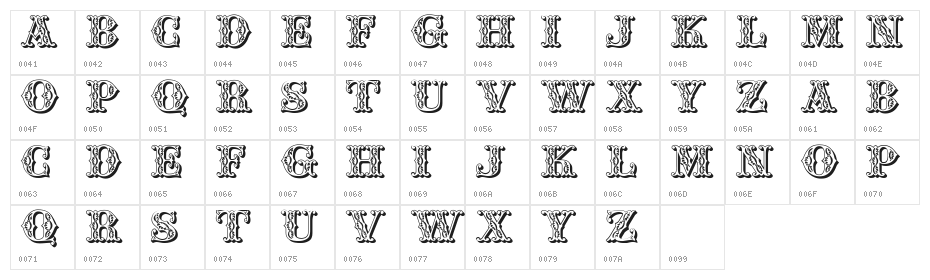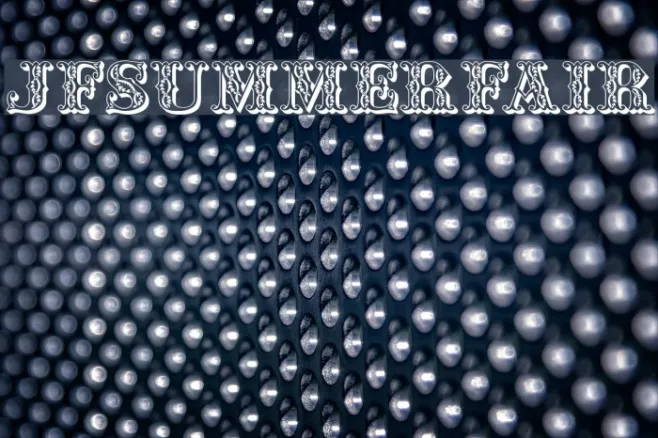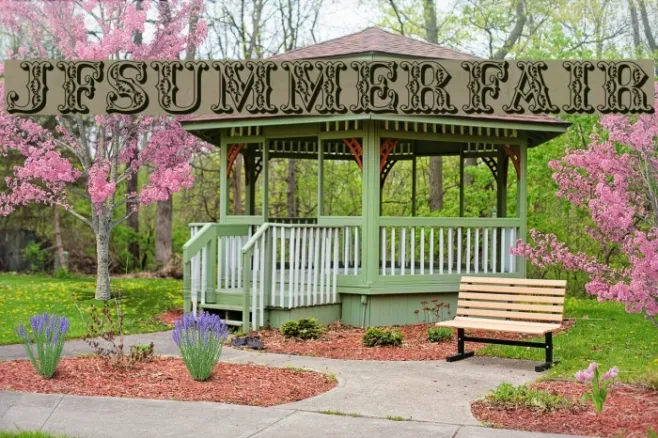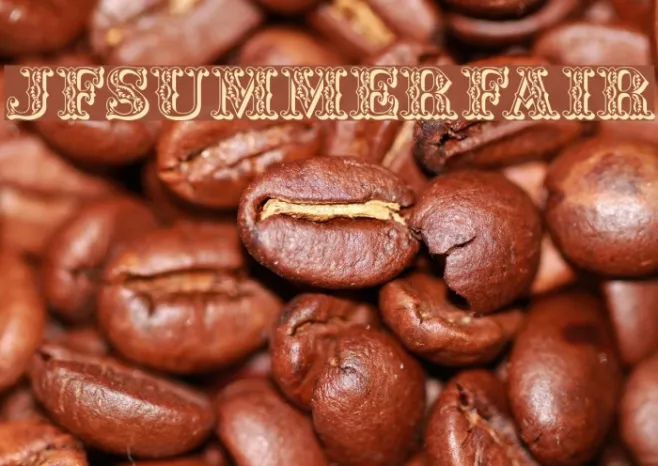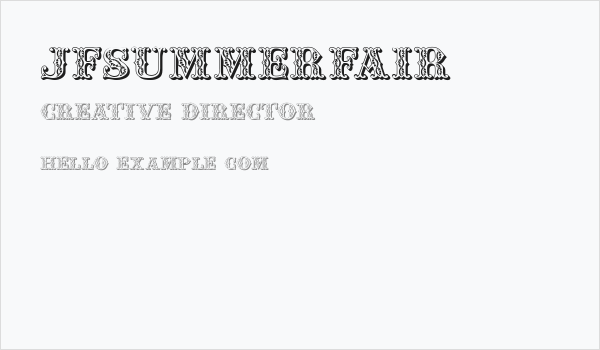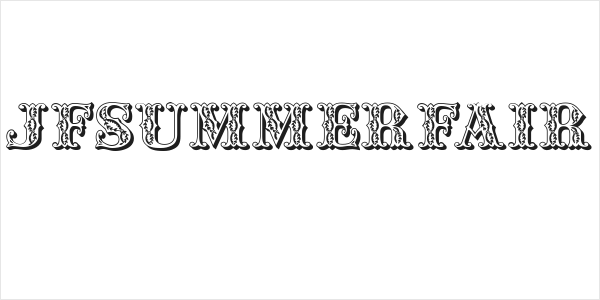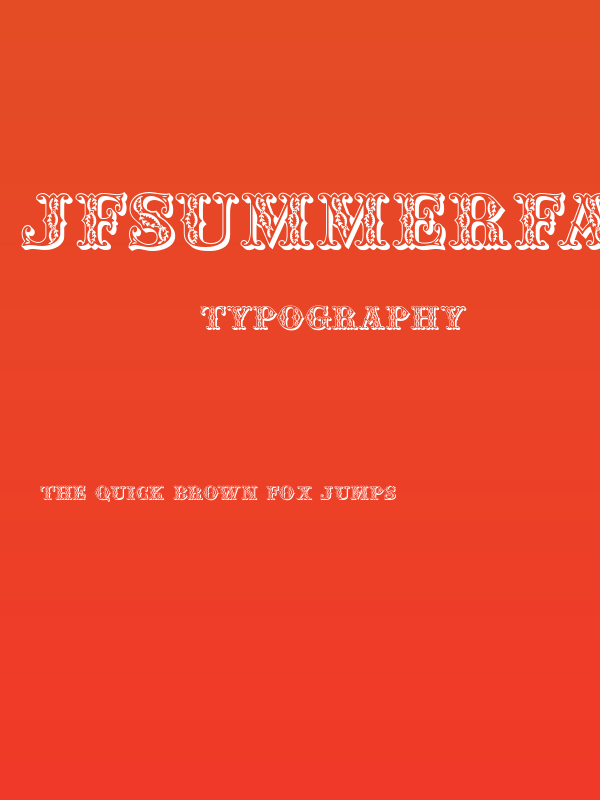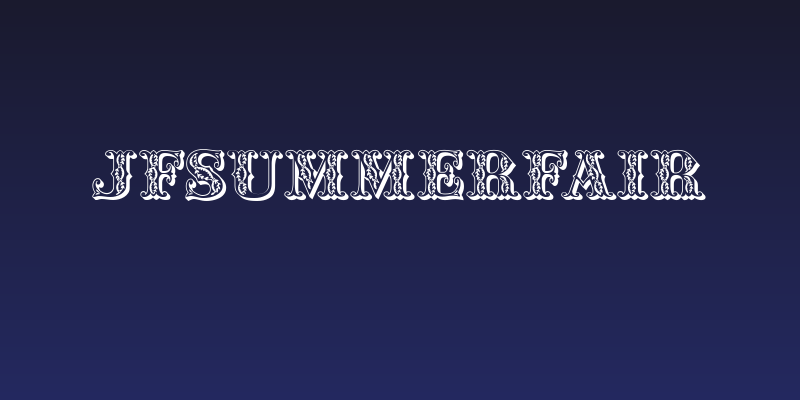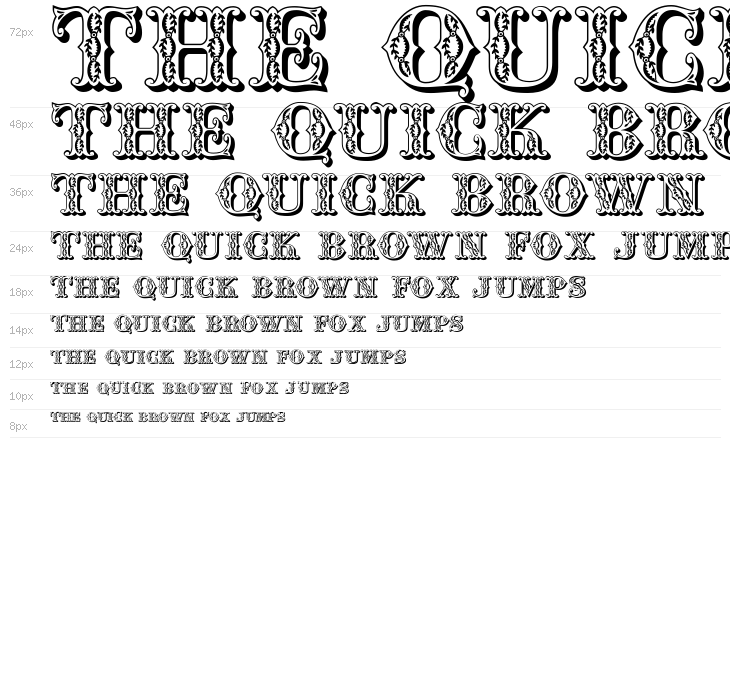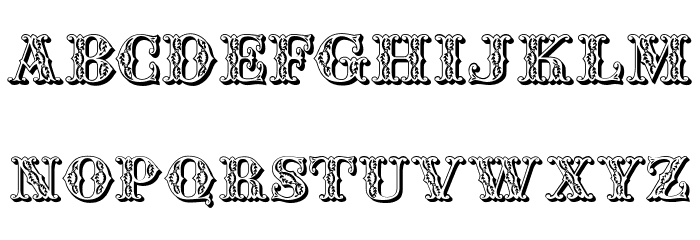
JFSummerFair Font
JFSummerFair Description
This font features an ornate and decorative style with intricate detailing within each character. The uppercase letters are embellished with elaborate flourishes, giving them a vintage and artistic appearance. The design is highly decorative, with a focus on aesthetic appeal rather than simplicity or readability. Each letter is crafted with a sense of elegance and sophistication, making it suitable for projects that require a touch of grandeur and visual interest. The font's unique style is reminiscent of classic Victorian or Art Nouveau designs, characterized by its intricate patterns and elaborate forms.
| Proposed Projects | Ideal for use in invitations, posters, branding, and any project requiring a vintage or artistic touch. |